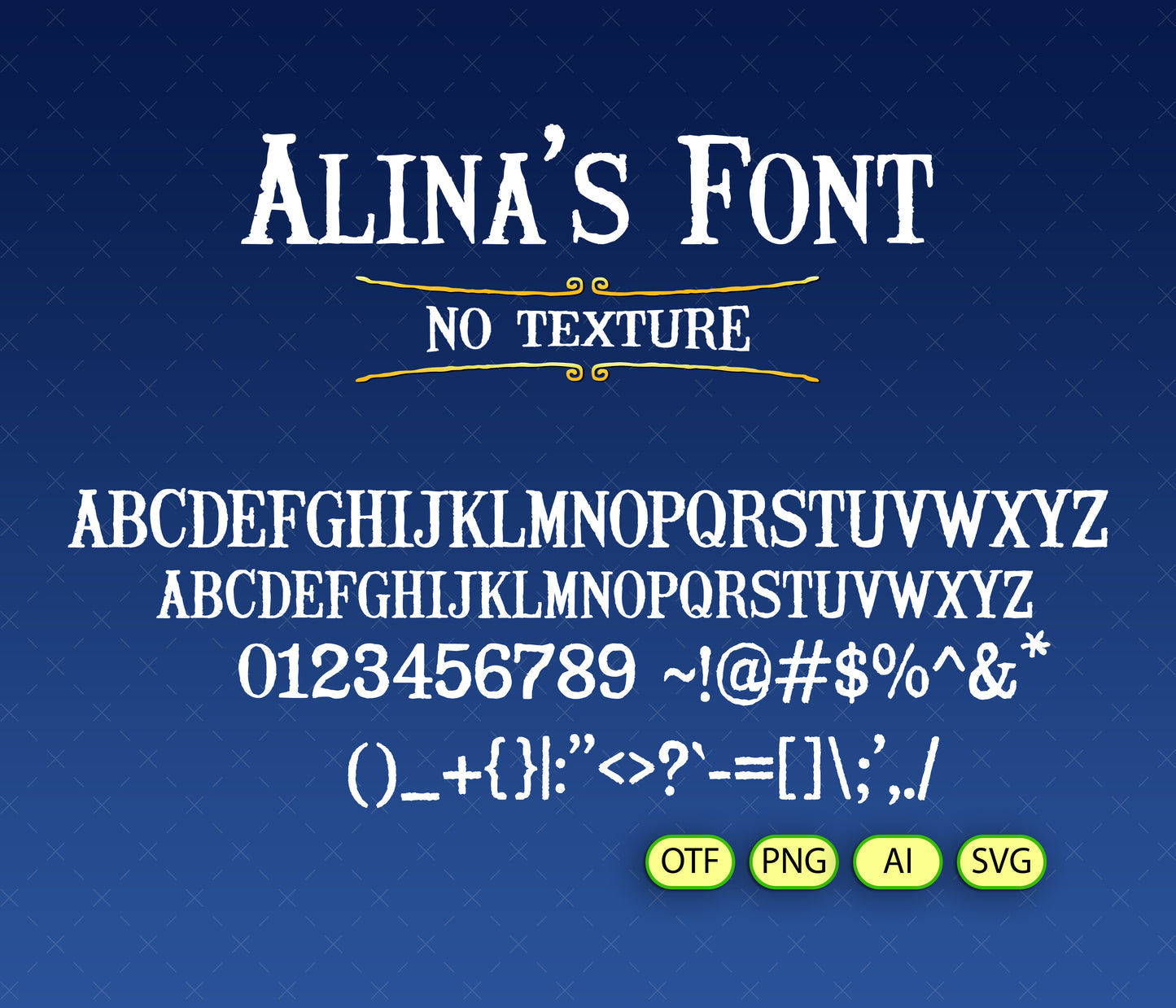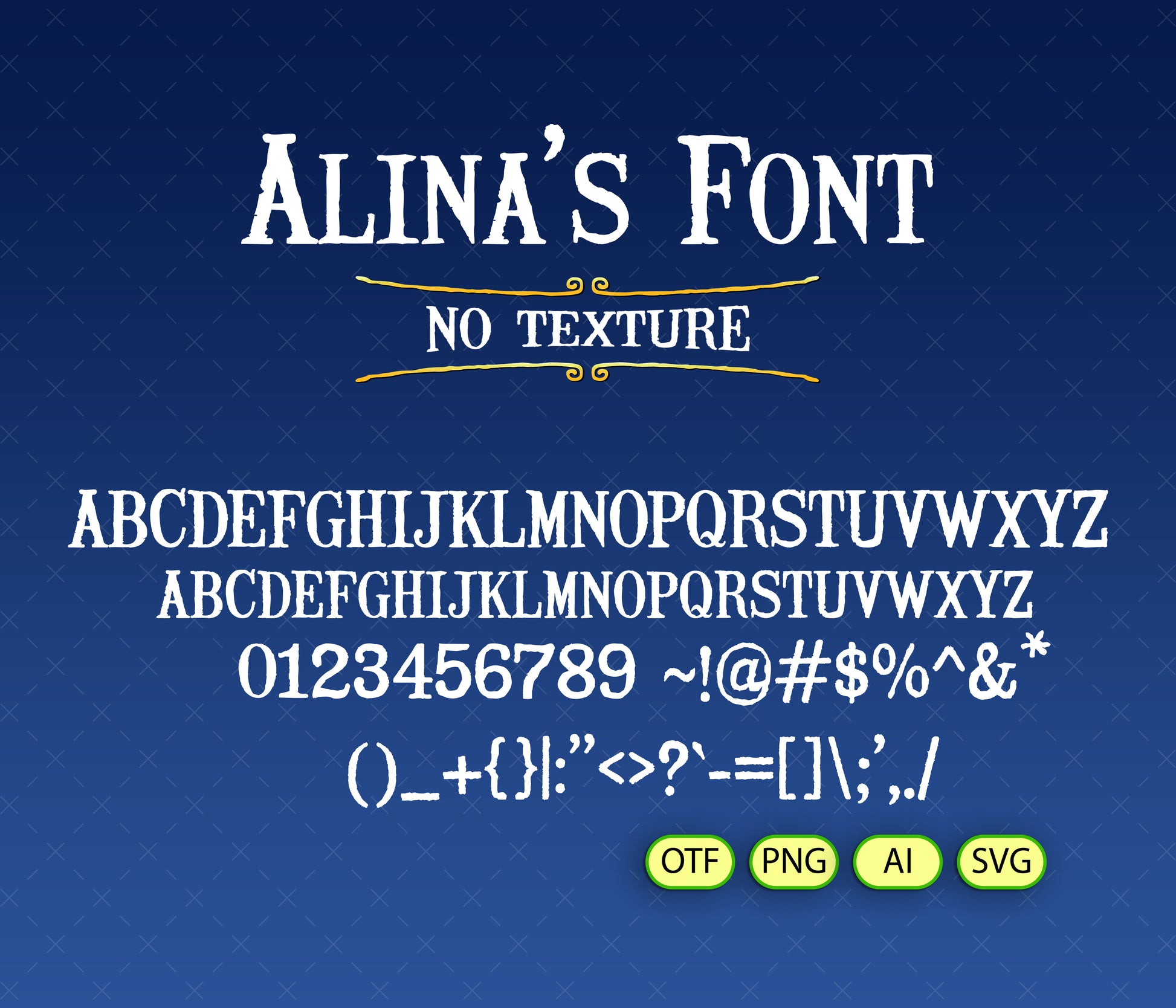
Medieval Satire Dark Font
Medieval Satire Dark Comedy Style
Step into the irreverent world of cynical kingdoms and satirical adventures with our Medieval Satire font, capturing the essence of twisted fairy tales and darkly humorous quests. Perfect for adult animation creators, dark comedy writers, satirical content designers, and creative professionals, this font brings the witty, subversive spirit of medieval parody adventures to your projects. Create wickedly funny invitations, satirical merchandise, or digital content with the cleverly cynical, irreverently medieval energy of dark comedy tales.
Our Medieval Satire font features bold, irreverent strokes and comedically medieval characters reflecting the beautifully twisted yet humorous aesthetic of satirical kingdom scenarios. Ideal for: